Text font for conversations
Hello, everyone. I am here to ask you a question. What text font do you think the game deserves?!
This text font will not aplly menus (which will use the Sword Art Online font).
I use Verdana on the previous demos, but… What do you think the font should be?
I thought of a mix between fantasy and techno…
What do you recommend?!
Also, I changed the windowskin:
This windowskin is similar to the one used in Sword Art Online: Hollow Fragment for the PS Vita. Proff:
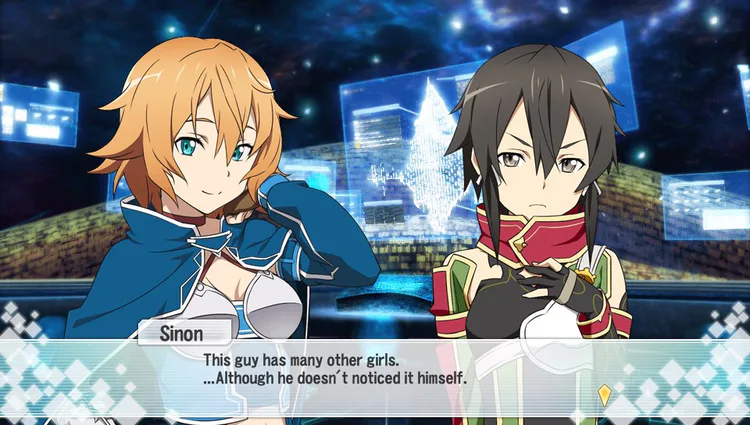
The previous was this: